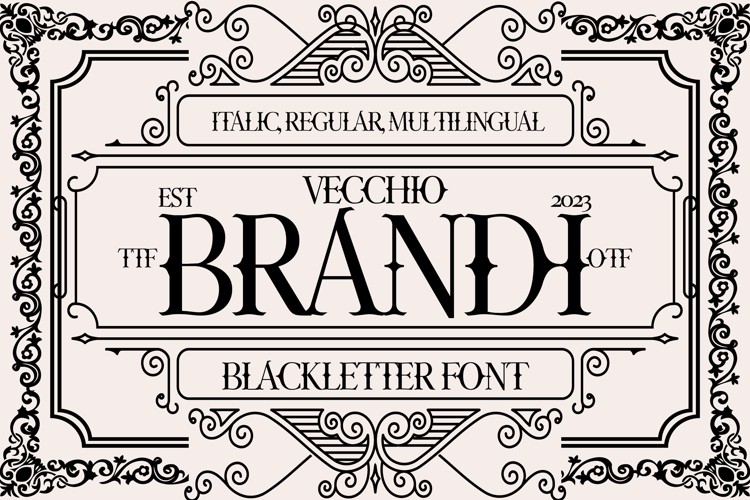
VECCHIO BRANDI Font
๐จ Font Name: VECCHIO BRANDI by Minimalist Art Studio
๐จ Font Description: Vecchio Brandy is a classic blackletter serif with ornamental flair and gothic charm, perfect for branding, packaging, and heritage design.